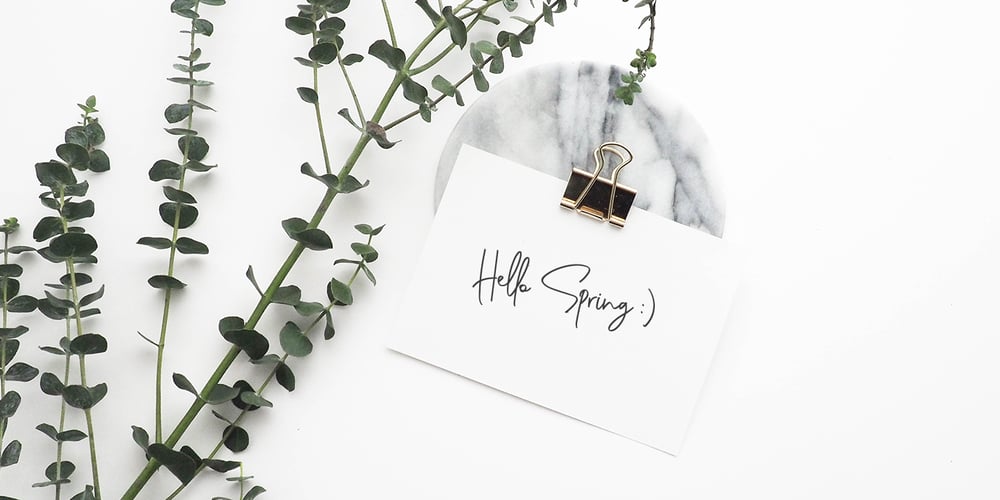
Genit Font Family was designed by Anton Cahyono and published by Motokiwo. Genit contains 1 styles and family package options. Genit is a classy, elegant, modern and natural handwritten script font. Genit was made to handle every minimalist design project. Minimalist design is recommended for professional business, just like Leonardo da Vinci said: “Simplicity is the ultimate form of sophistication” With its signature style, Genit is ideal for business cards, magazines, book covers, blogs, branding, posters, headlines, wedding, quotes and also GREAT for logos. You can use this font for various design projects that need an elegant feel.